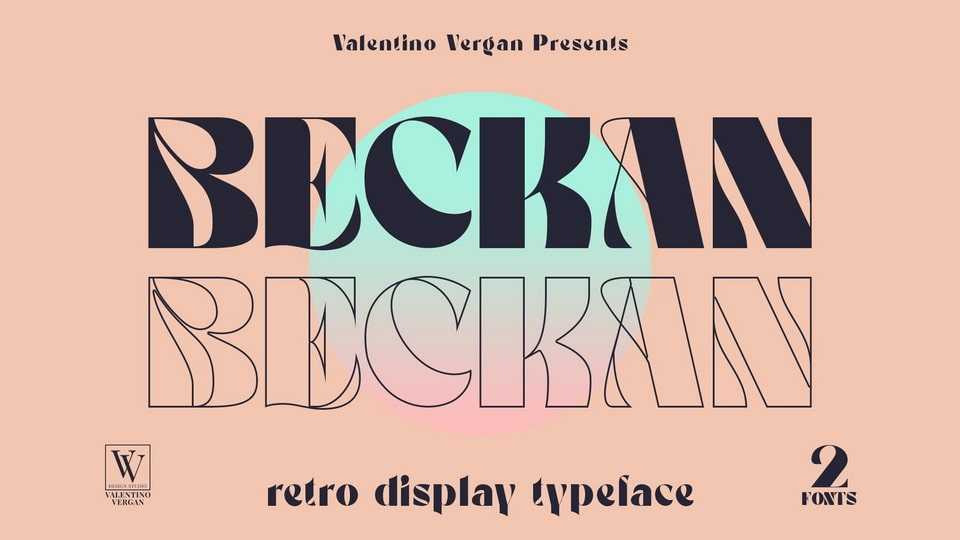
Download Beckan font, a retro inspired typeface, which leans towards the Art Nouveau style. The Beckan typeface has a high-contrast and a thin hairline, this gives the typeface a bold and modern retro look.
Designer: Valentino Vergan